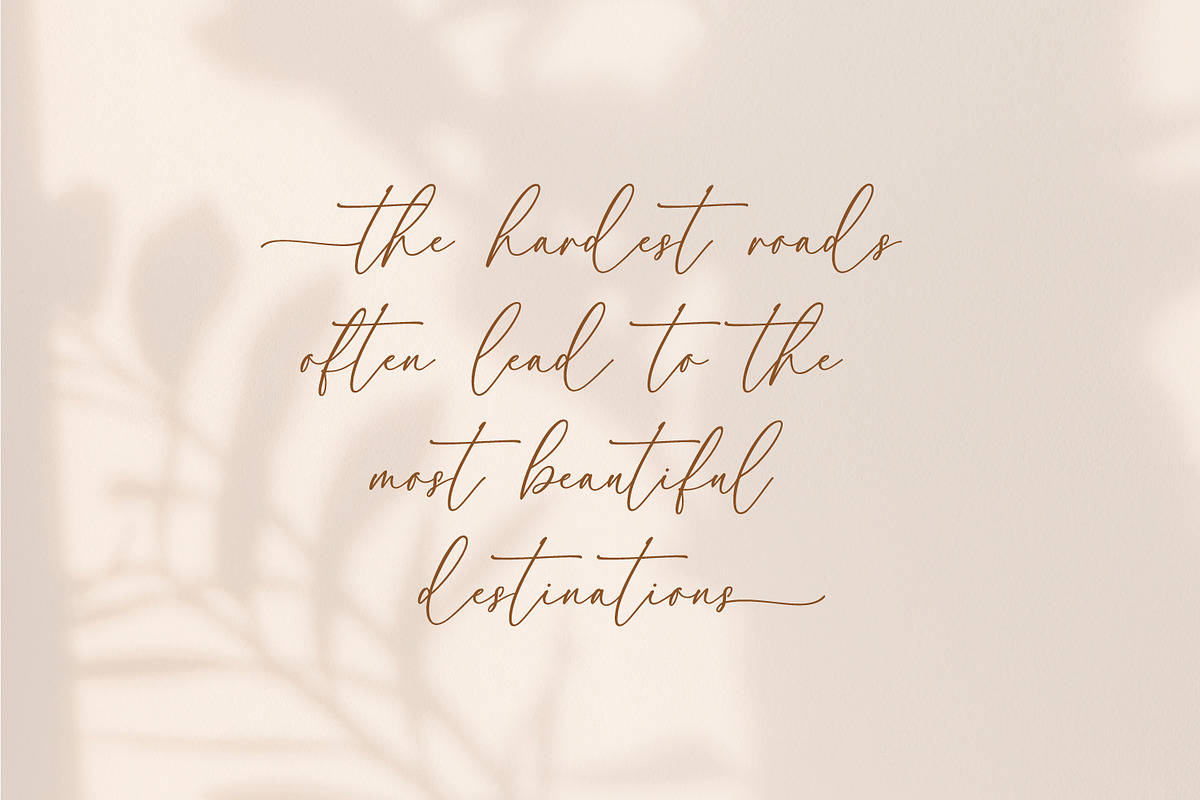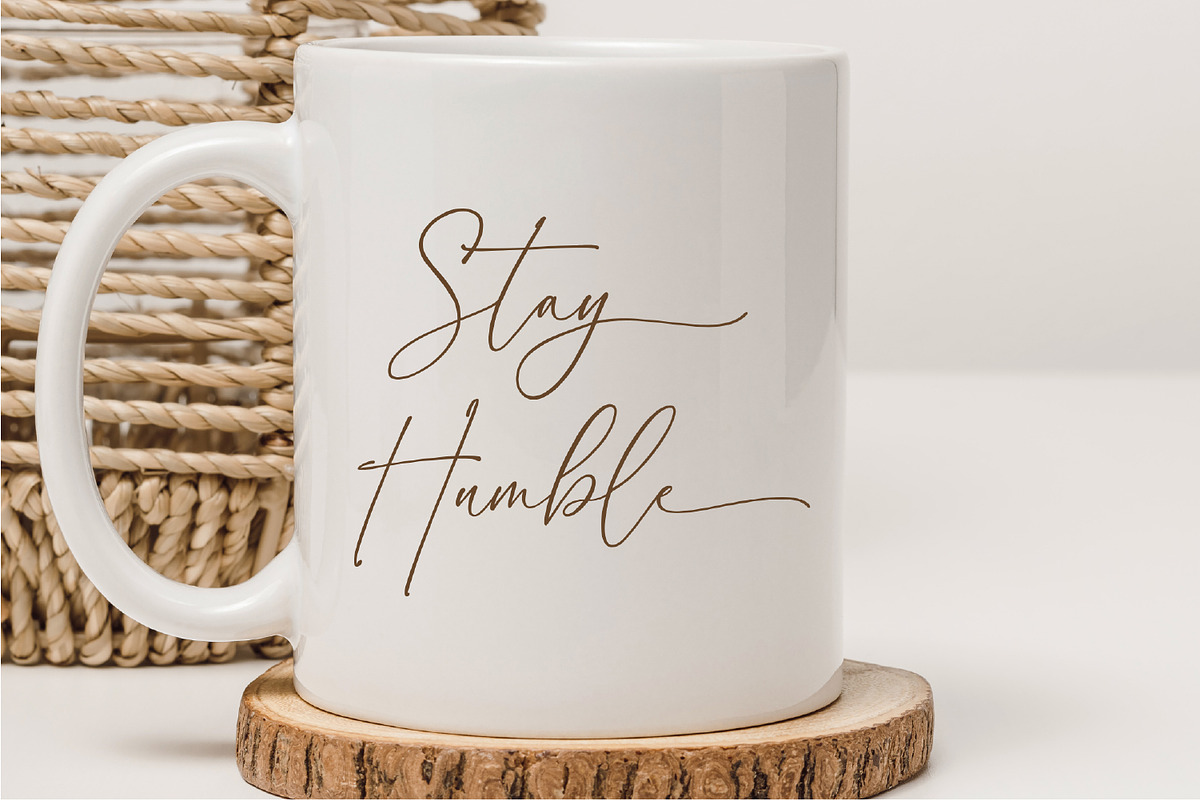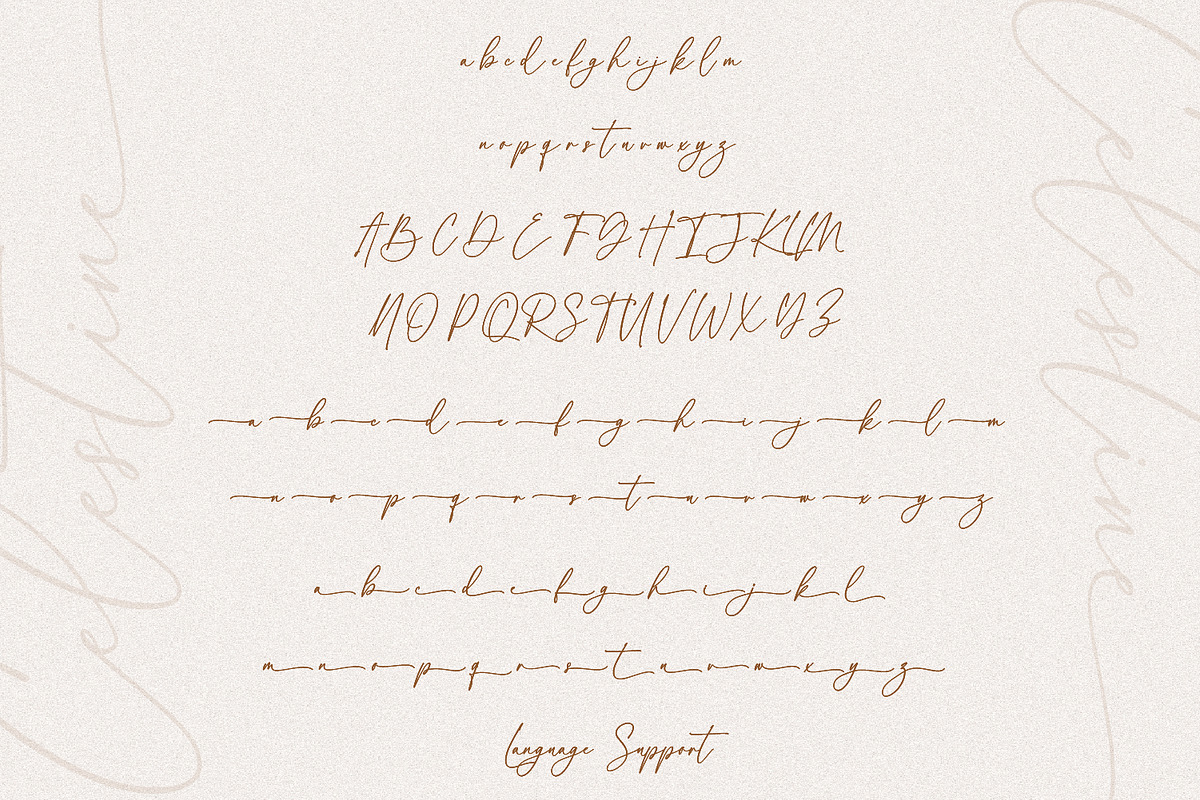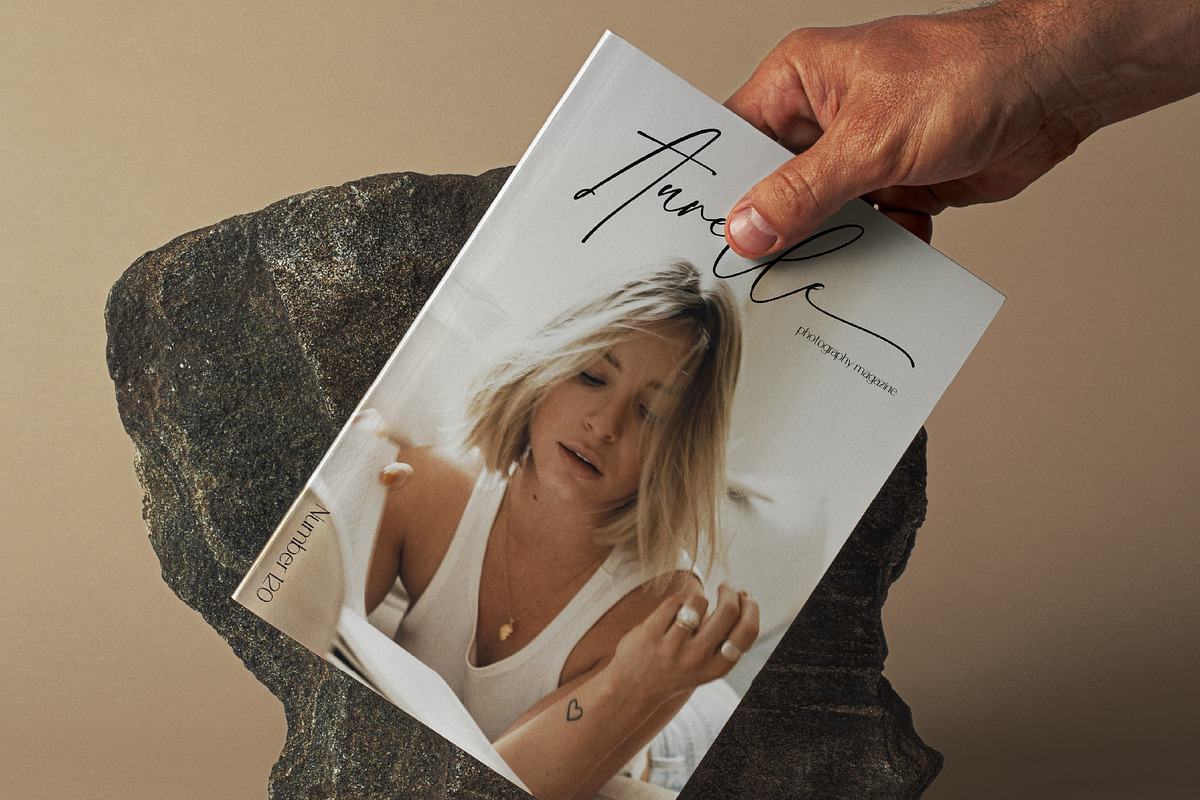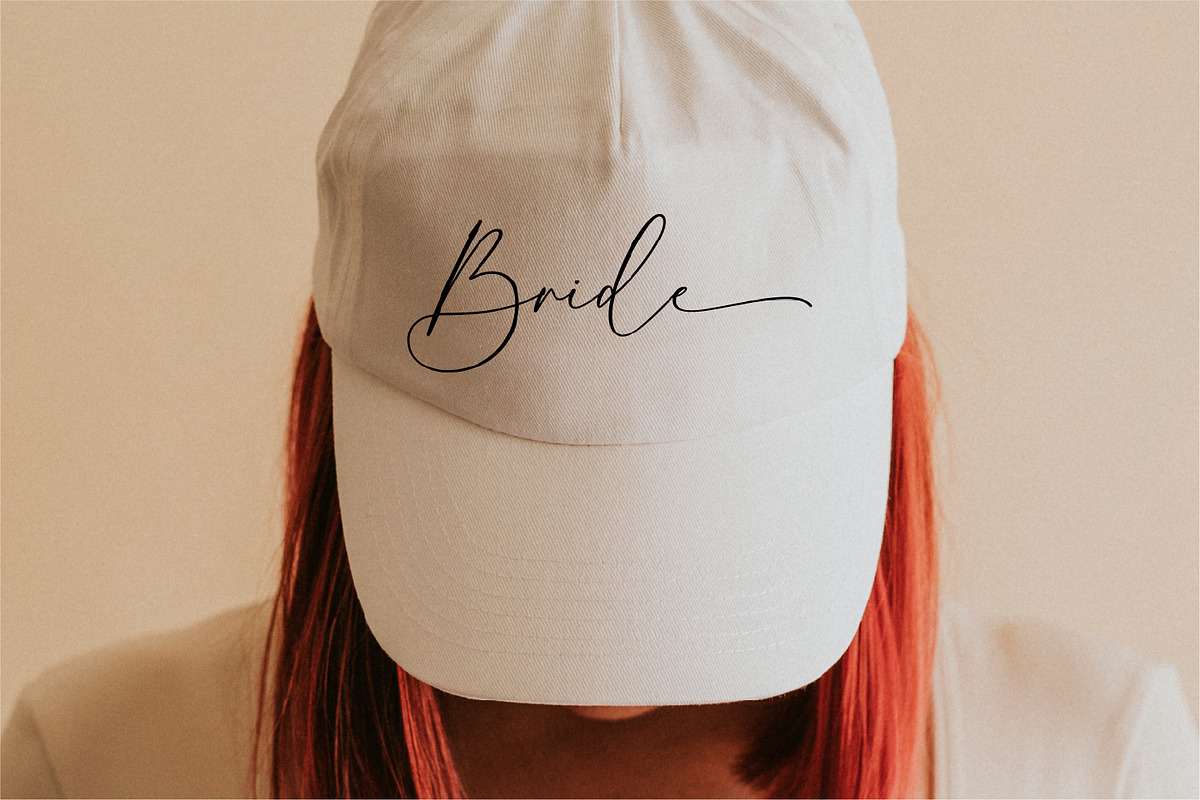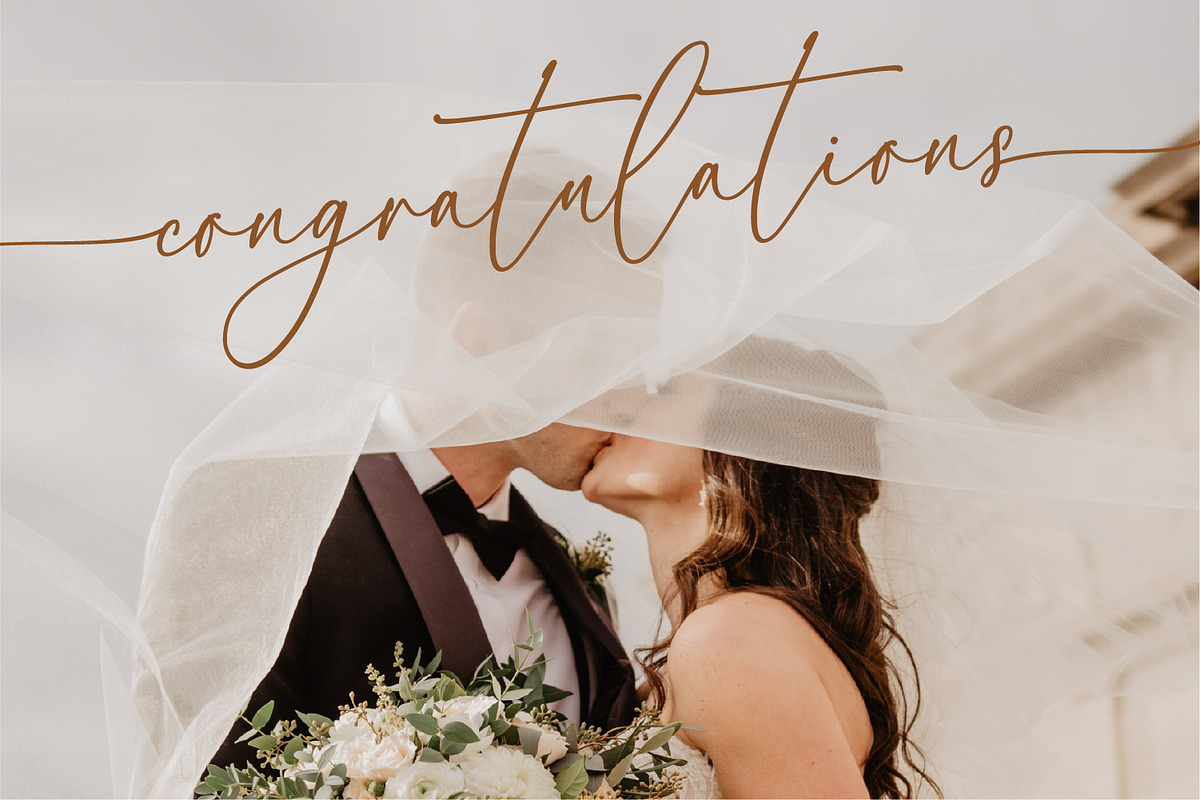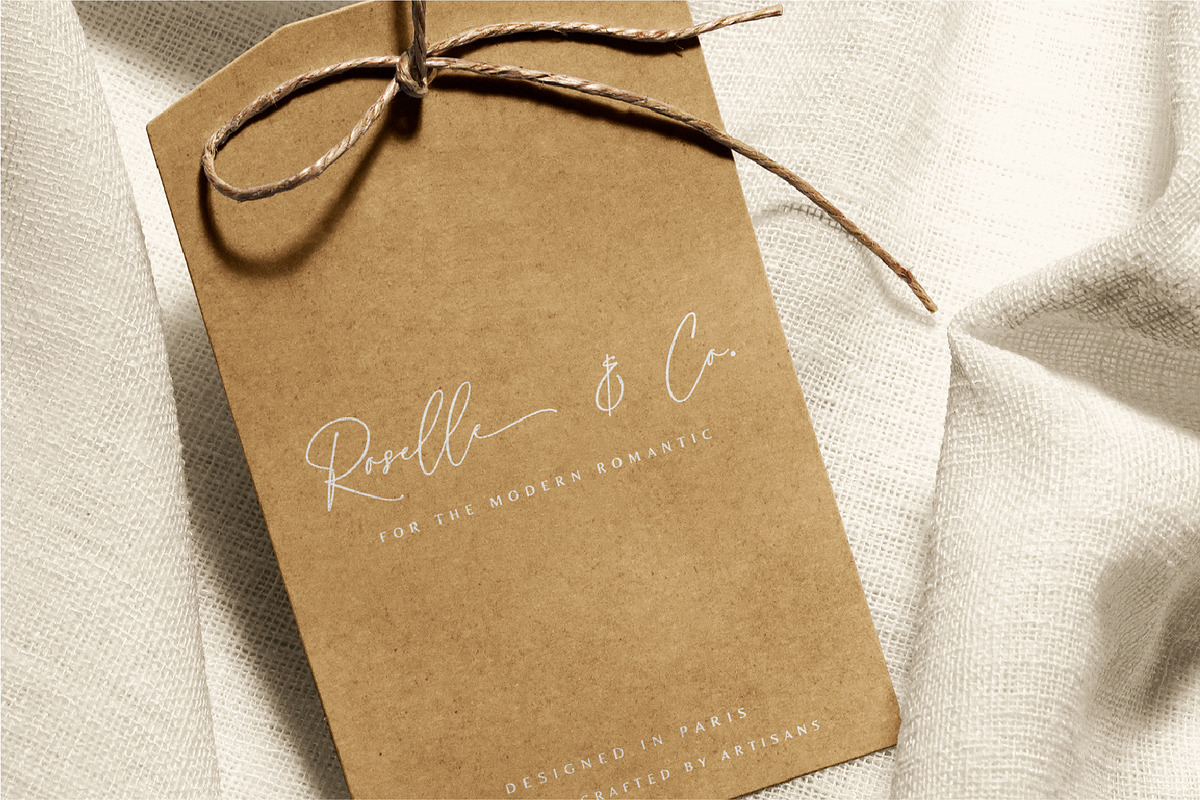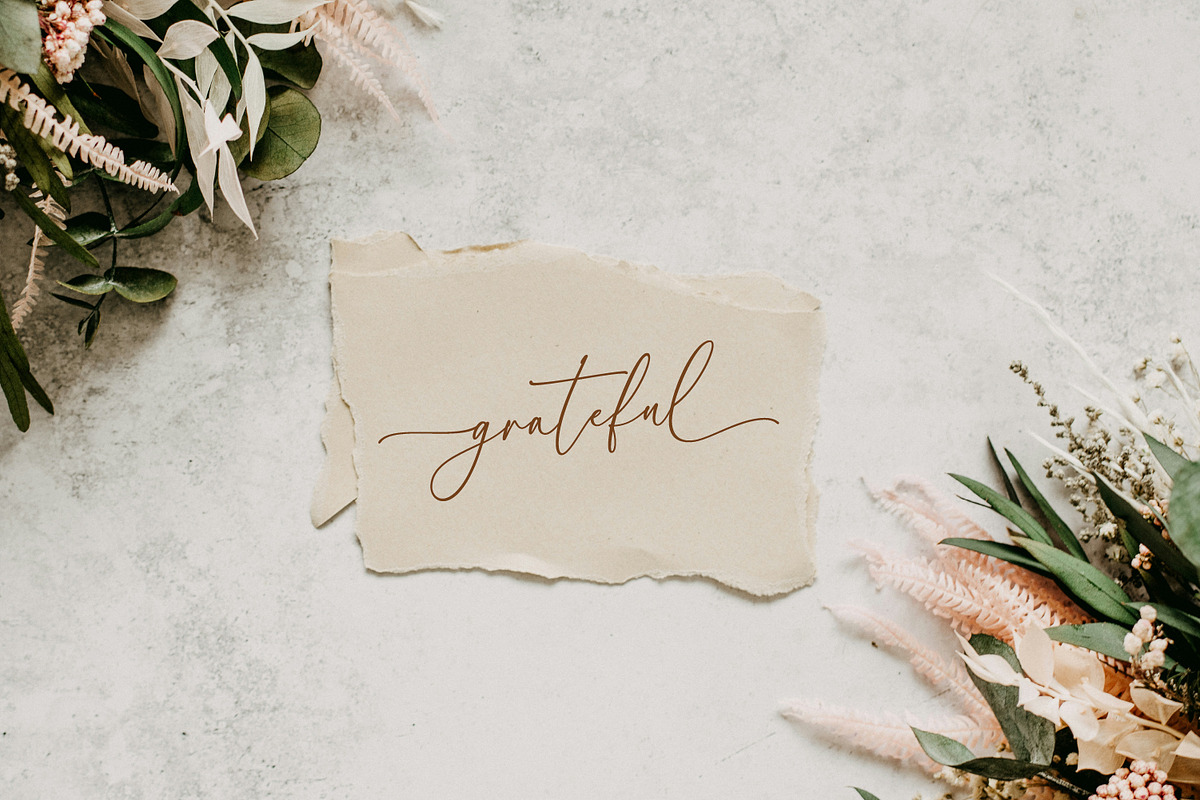
Celestine Script
Celestine is a graceful and elegant script font designed to bring a feminine and timeless touch to your creative projects. Its flowing strokes and romantic curves make it perfect for wedding invitations, branding, packaging, and editorial designs.
This font includes left and right swashes for both beginning and ending letters — all PUA encoded, so you can easily access them in any software (like Cricut, Silhouette, Canva, Photoshop, Illustrator, etc.) without needing special programs.
Full A–Z & a–z characters
Numerals, punctuation, and alternates
PUA Encoded Swashes (left & right for beautiful openings and endings)
Celestine offers extensive multilingual support covering:
Basic Latin, Western European, Central European, South Eastern European, South American, and Oceanian languages.**
Perfect for designers working with diverse global audiences.
** Perfect For**
Wedding invitations & stationery
Logos & branding
Elegant product packaging
Social media posts & aesthetic quotes
Printables, mugs, greeting cards, and more
Highlights
Feminine, elegant & timeless design
Left & right swashes (PUA encoded)
High-quality kerning for smooth connections